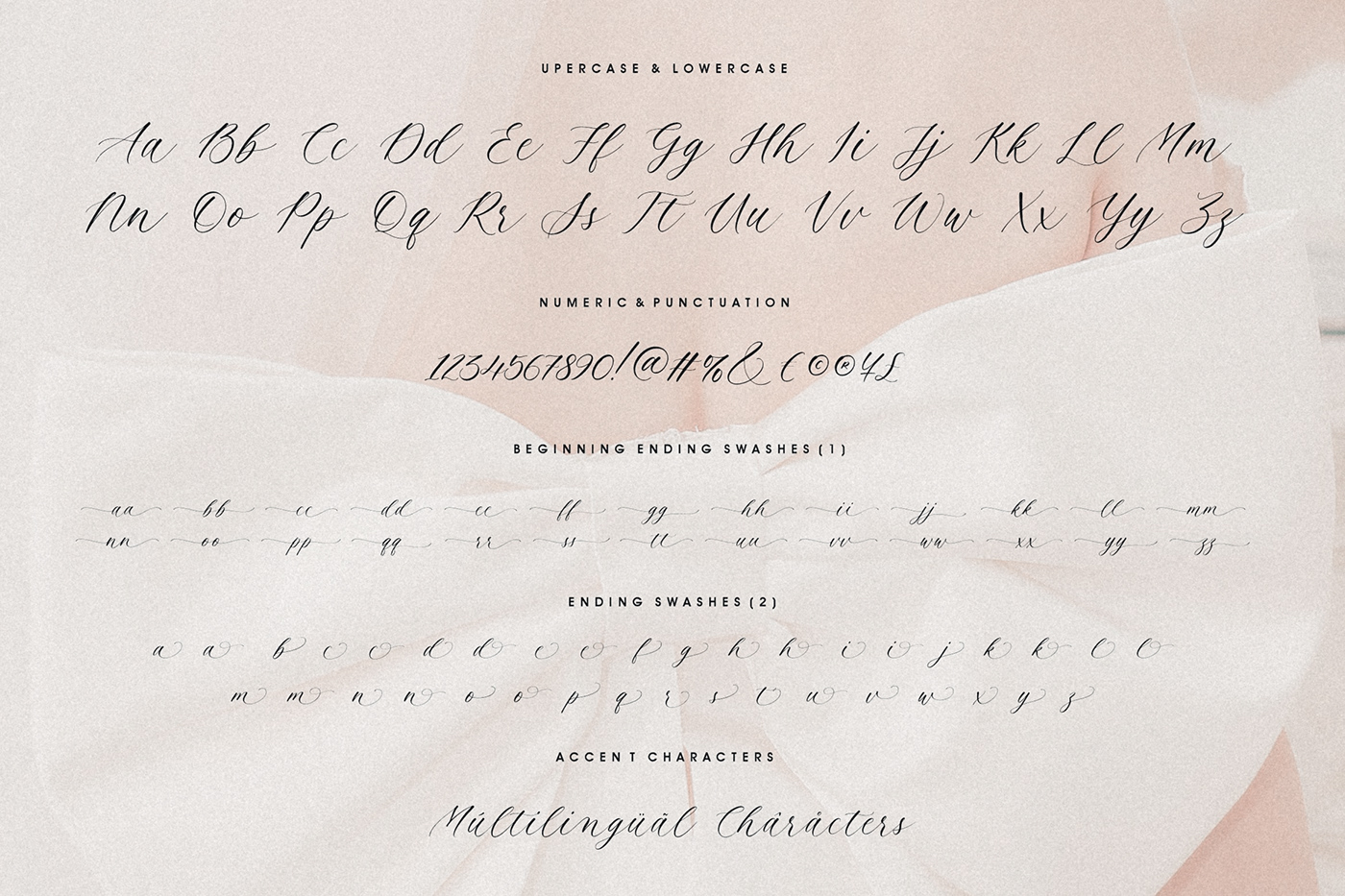
Introducing, Beloved Sandra!
Beloved Sandra is a modern and luxury calligraphy font.
Beloved Sandra will add charm and impression for your design.
Beloved Sandra is perfect for many design needs such as merch, T-shirts, signature logo, wedding, book covers, social media posts, websites, events, and many more.
- Ending Swashes & Beginning swashes.
- Numeral & Punctuation.
- ligature.
- Multilingual Support.